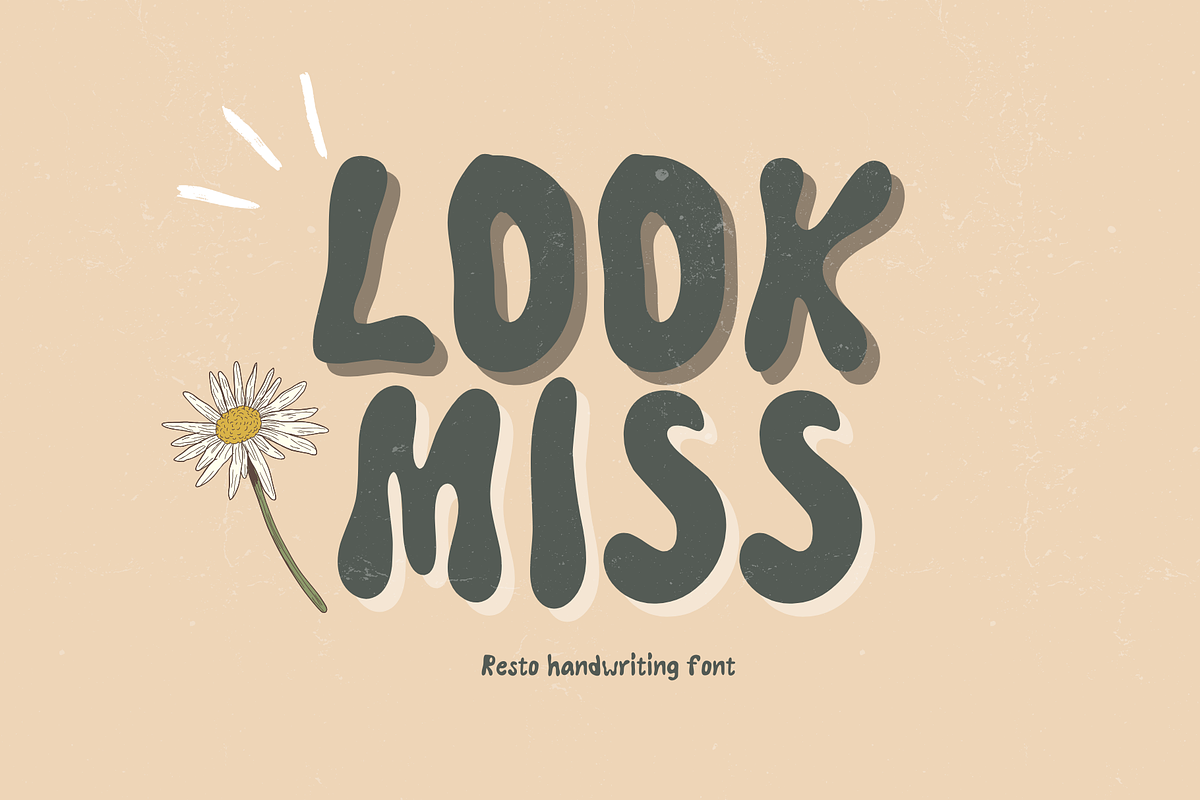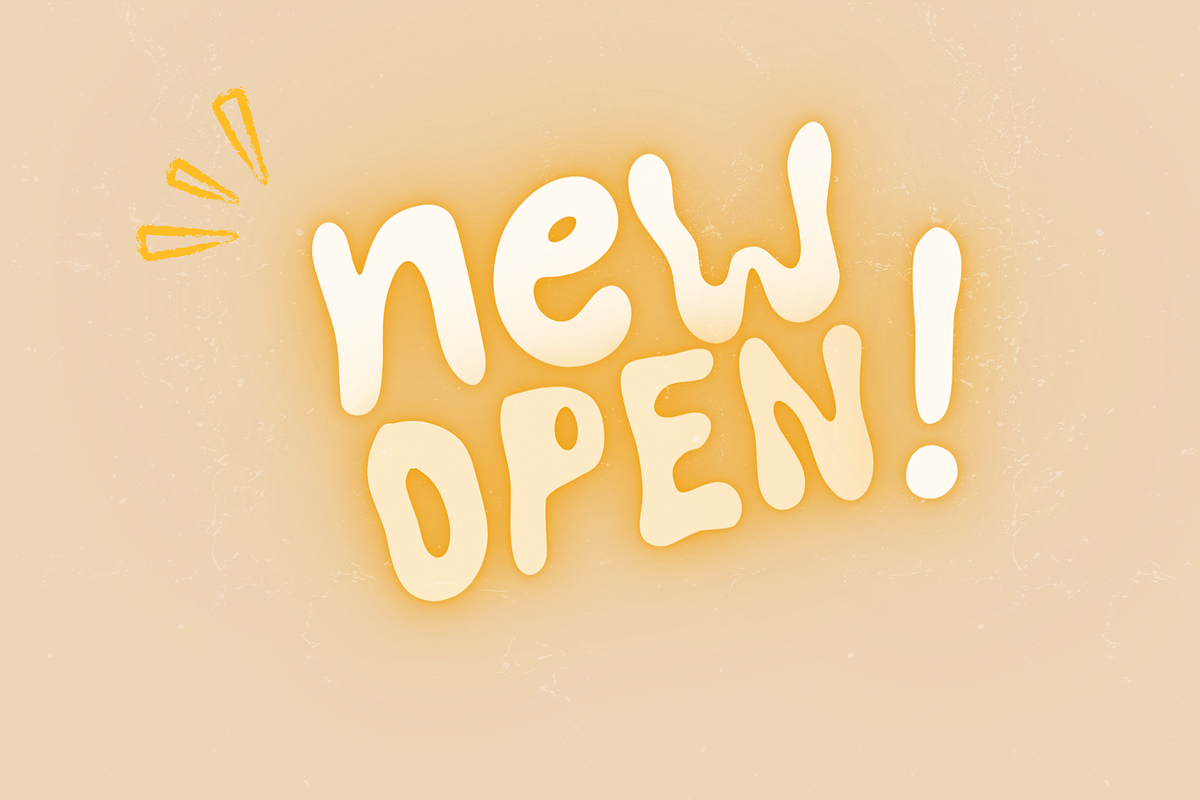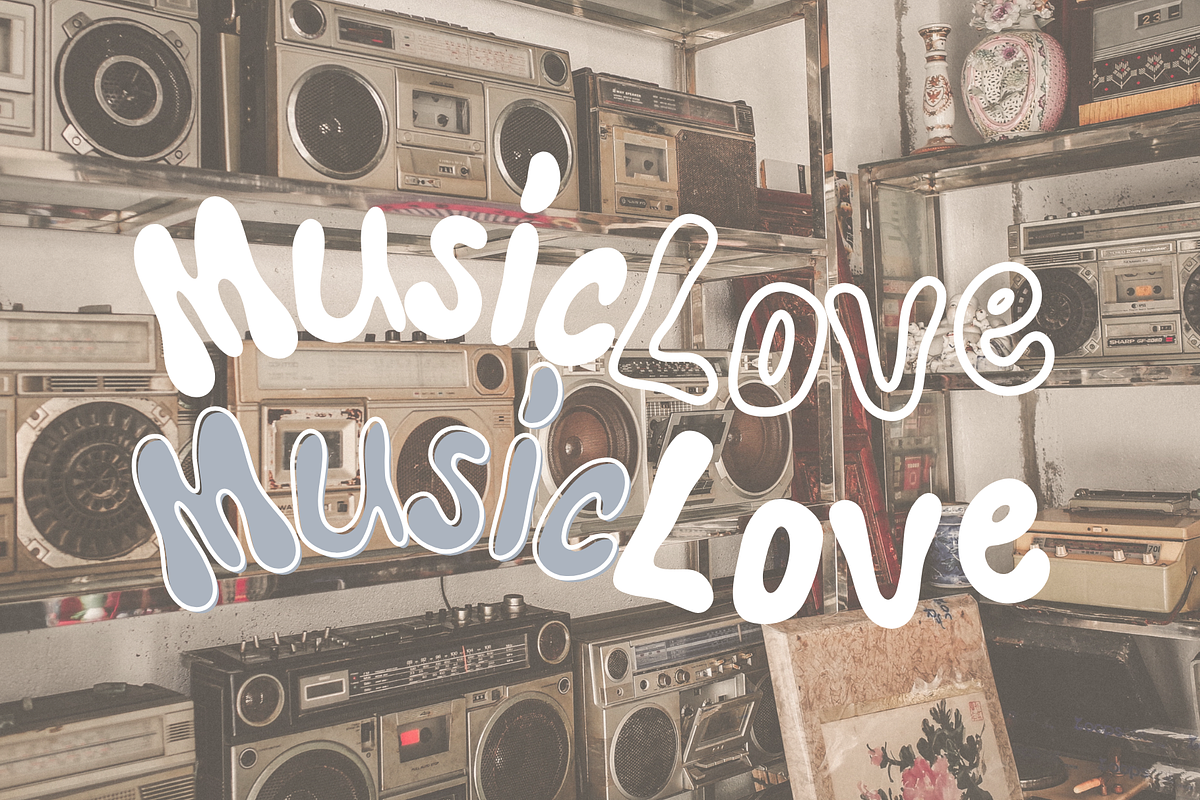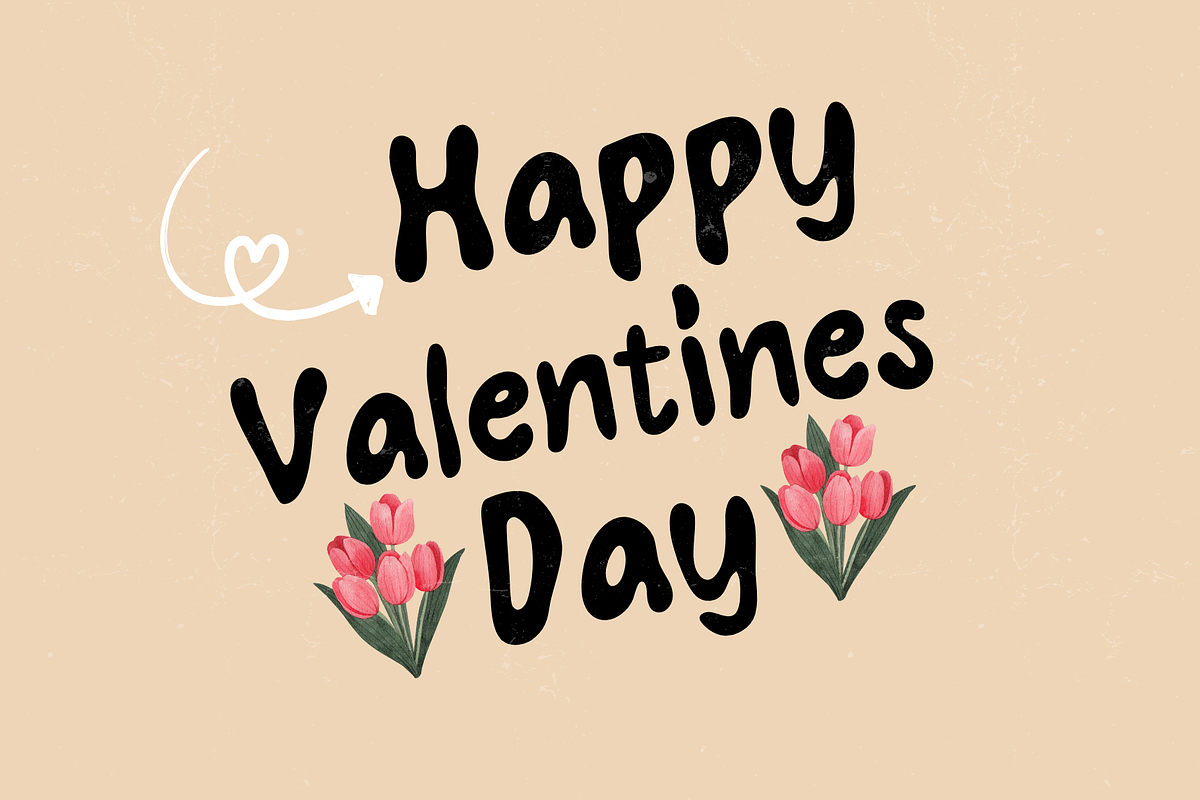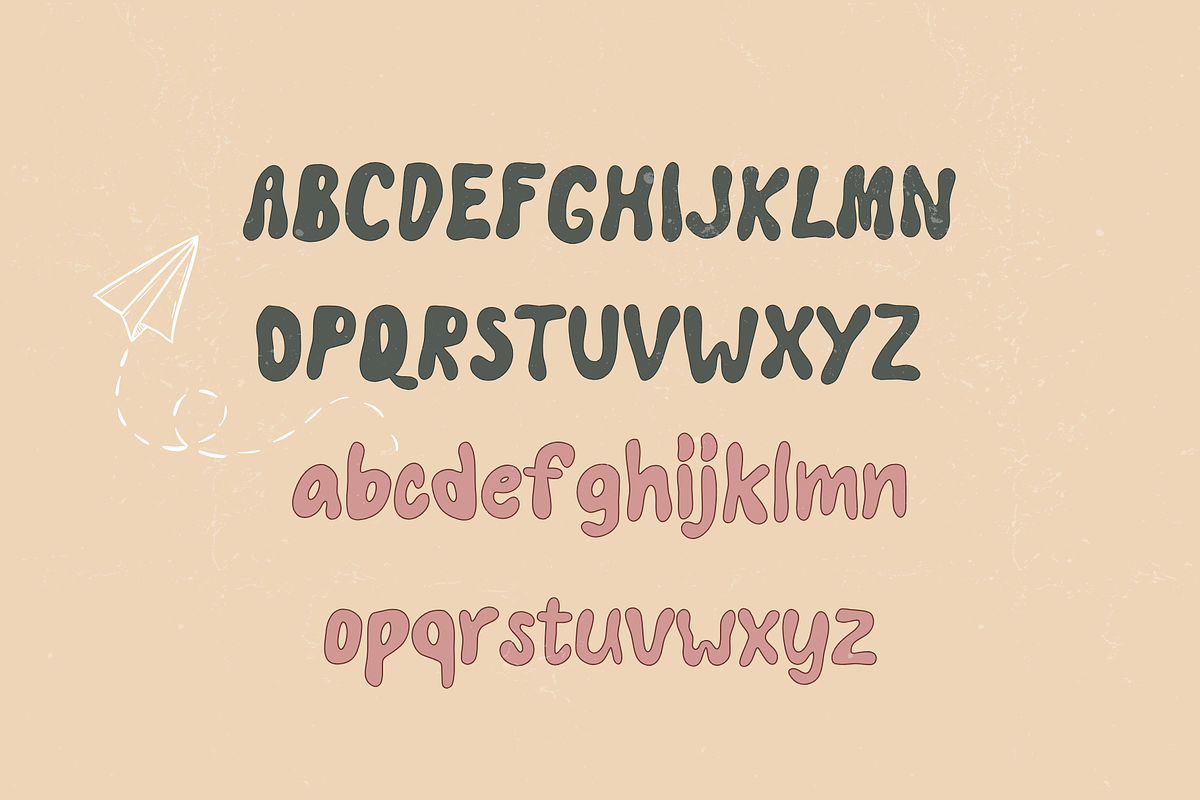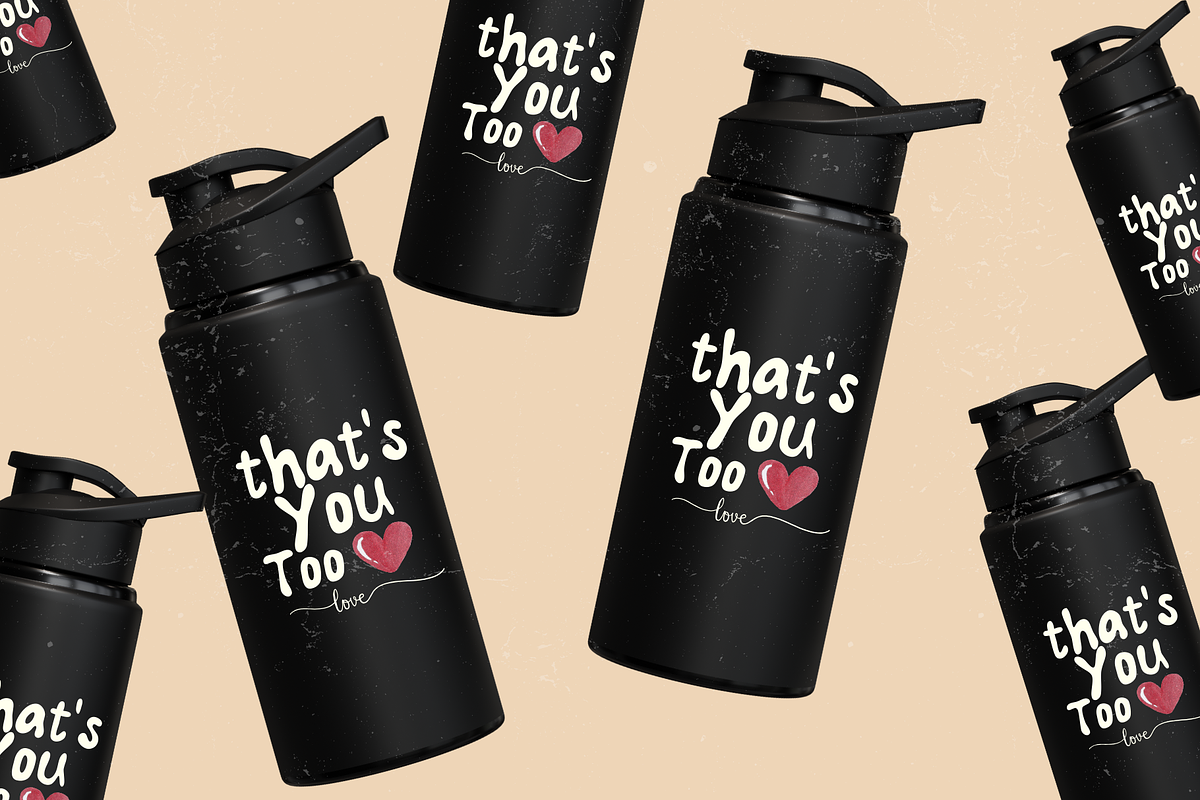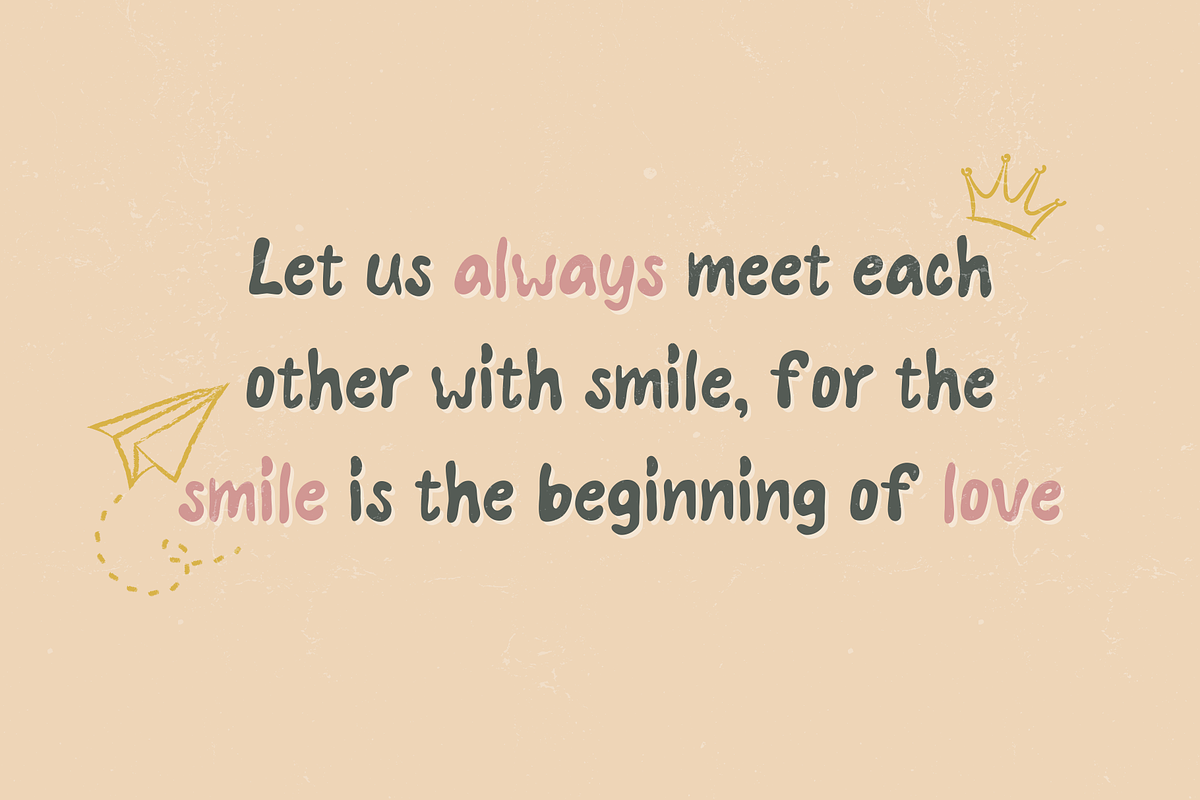
Look miss font
"It's a font that exudes a cool and modern feel, standing out with unique letter designs suitable for a variety of design projects such as logos, signs, posters, T-shirt prints, water bottles, bags, and more. It adds a fun touch to your designs, enhancing your creativity with the charming and cute Doodle Tattoo font designed just for you."